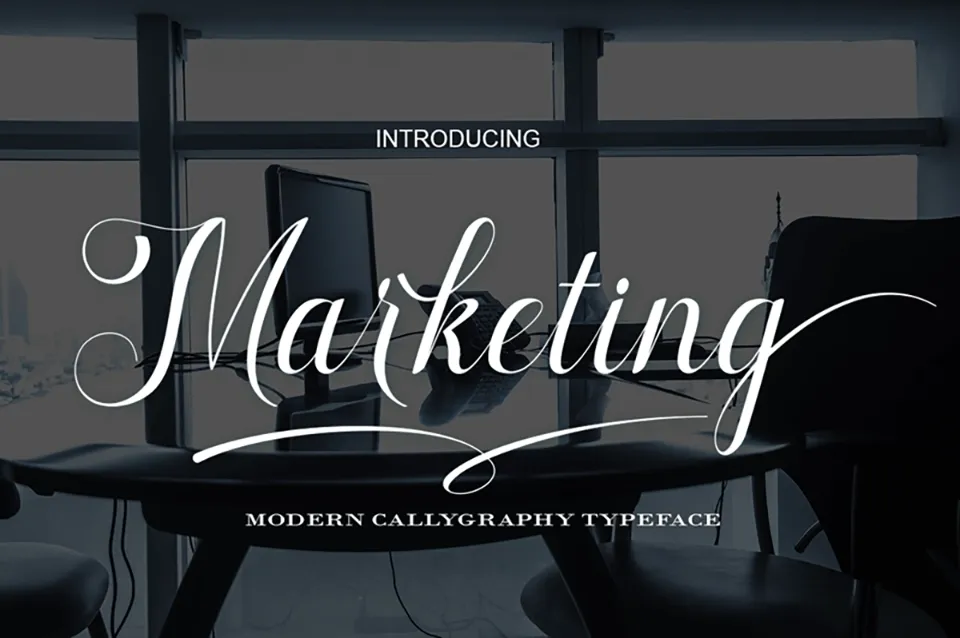
Marketing Font
Marketing Script New fresh & modern style with handmade calligraphy, decorative characters and dancing lineage! So wonderful are invitations like greeting cards, branding material, business cards, quotes, posters, and more !!